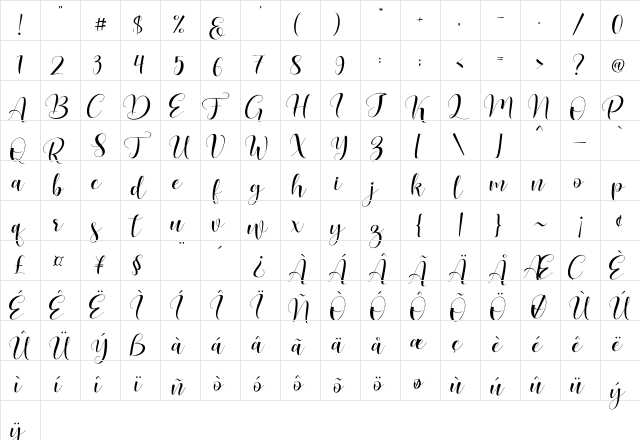
Lovea Regular
Design Context for Lovea Typeface
Lovea is a composed and adaptable typeface that performs quietly and consistently across a wide range of design contexts.